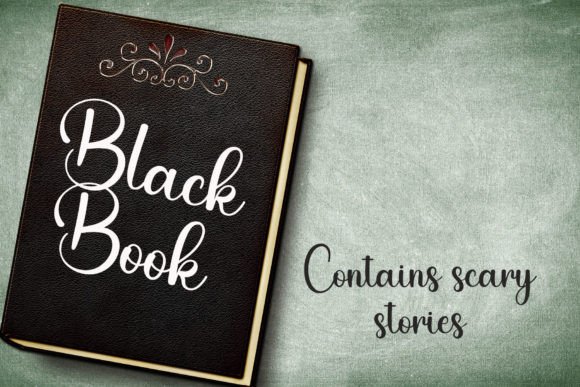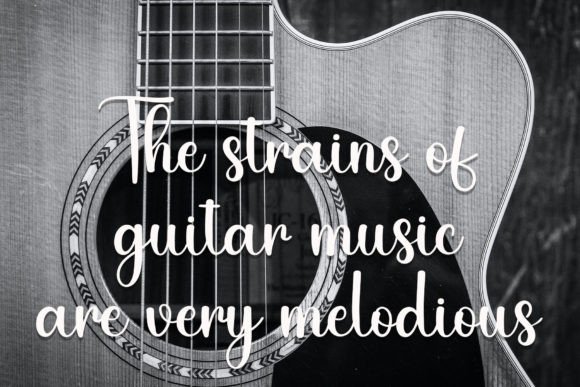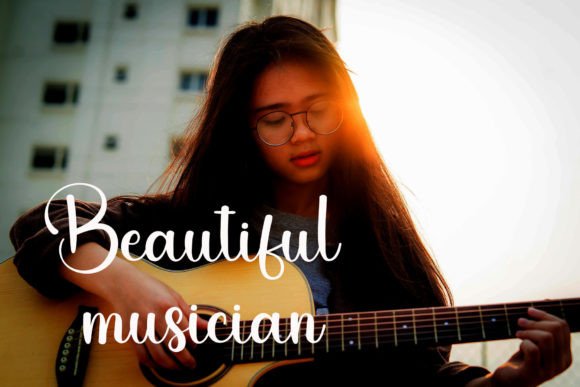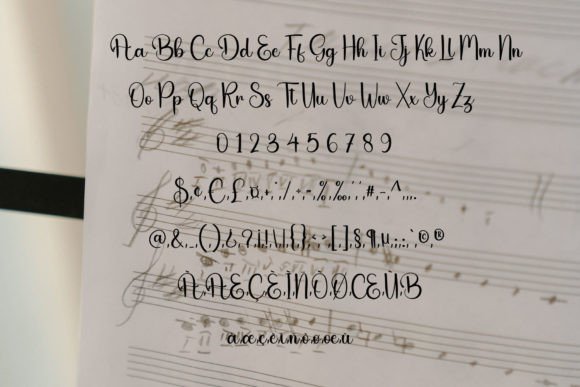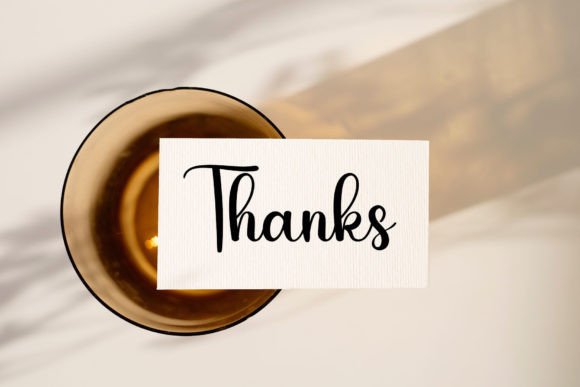
Introduction to Ditty Font
As you sit in front of your computer, staring at a blank canvas, the creativity flows through you, but the perfect font to match your vision is nowhere to be found. We’ve all been there – the struggle to find that one design element that brings our project to life. But what if we told you that your search is over? Enter the Ditty Font, a stunning handwritten font that adds a touch of luxury to any design project.
With its beautifully crafted characters that dance along the baseline, the Ditty Font is a high-quality design resource that is sure to elevate your creative project. Whether you’re working on a branding project, a social media campaign, or a simple graphic design, this font will add a level of sophistication that’s hard to match. And the best part? It’s available for a free download, making it an accessible addition to your design toolkit.
Key Features of Ditty Font
- High-quality design resource for creative projects, ideal for digital artwork and graphics.
- Transparent background option allows for seamless integration with various design elements.
- Unique characteristics include playful, cursive script and elegant typography.
Honest Review: Ditty Font
I recently came across the Ditty Font, and I must say it’s a delightful addition to any design project. As a designer, I’m always on the lookout for high-quality design resources that can elevate my creative work.
The Ditty Font is a charming script font that’s perfect for adding a touch of personality to your designs. One of the standout features of this font is its transparent background, which makes it easy to layer over images or other design elements. This is especially useful for designers who want to create visually appealing compositions.
Here are some things that work well with the Ditty Font:
- ✨ High-quality design: The font is crisp and clean, making it perfect for both digital and print projects.
- ✨ Versatile: The Ditty Font can be used for a wide range of creative projects, from wedding invitations to social media graphics.
One limitation of the Ditty Font is that it may not be suitable for projects that require a more formal or serious tone.
Overall, I’m impressed with the Ditty Font and would definitely recommend it to fellow designers looking for a high-quality design resource.
Tips for Getting the Most Out of Ditty Font
When using Ditty Font, remember to experiment with different font sizes and styles to achieve the desired effect. You can also combine Ditty Font with other design elements to create a unique and eye-catching design. Don’t forget to take advantage of the transparent background feature to add depth to your design.
Ditty Font is perfect for a variety of creative projects, including social media graphics, posters, and flyers. Its high-quality design and transparent background make it an excellent choice for designers looking for a versatile and easy-to-use font.
Can I use Ditty Font with a transparent background?
Yes, Ditty Font is designed to work well with transparent backgrounds. The font includes a transparent background option, allowing you to use it with images or designs that have a transparent background. This feature is particularly useful for designers who want to create visually appealing designs with a seamless background.